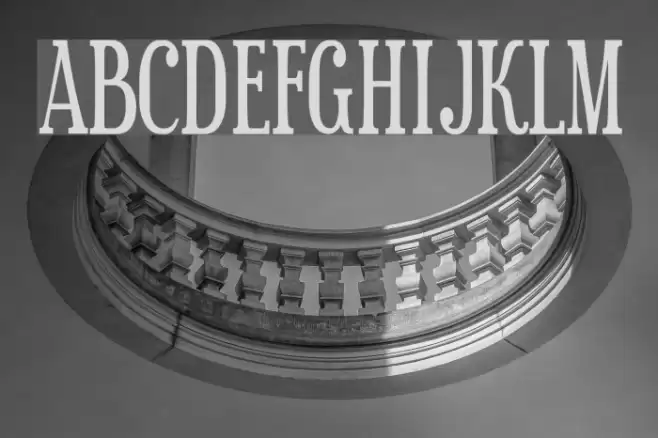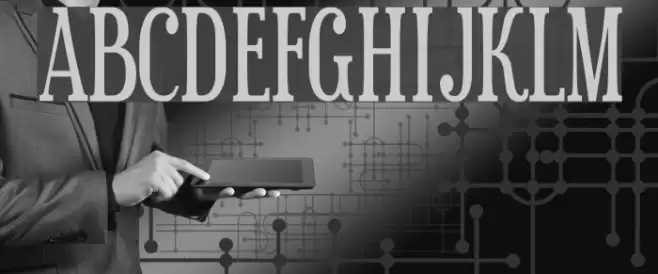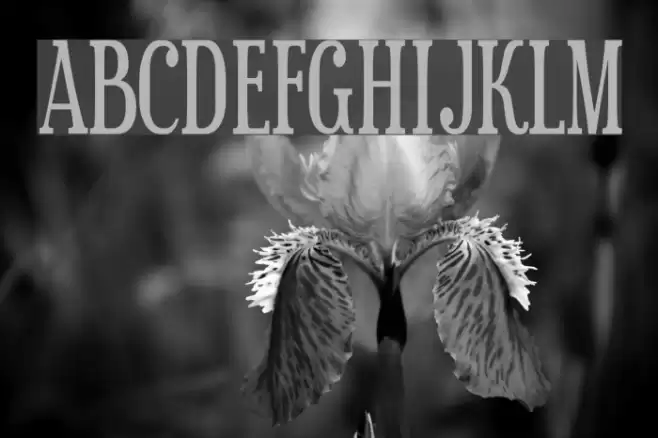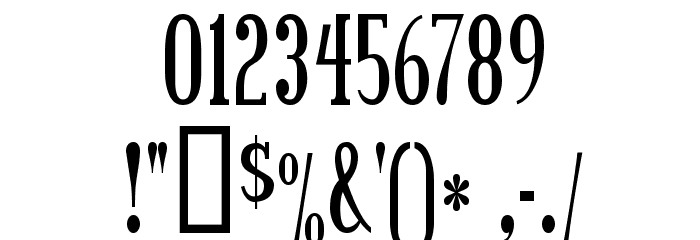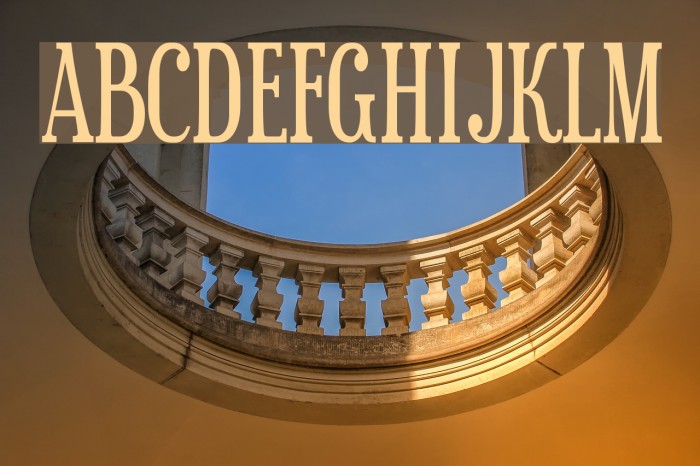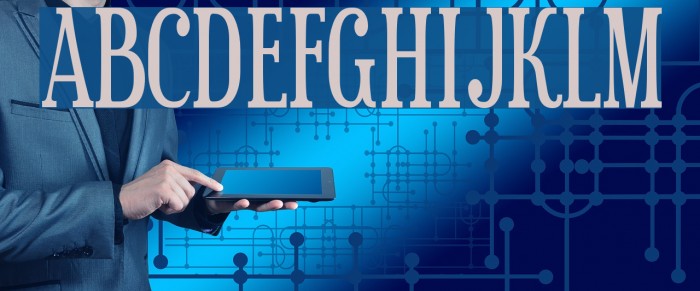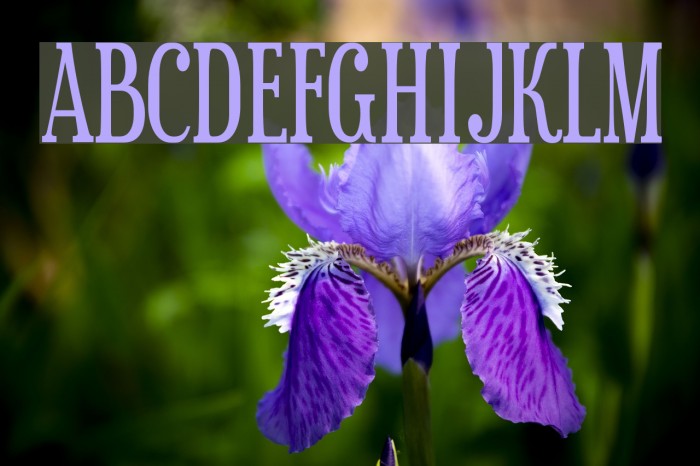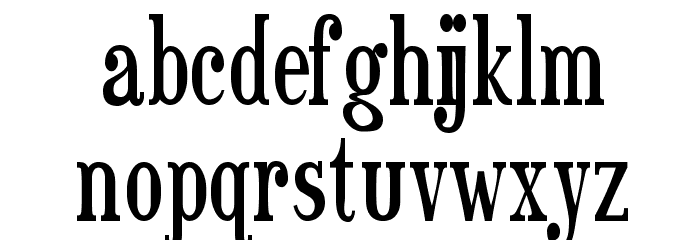
Sexsmith Font
Sexsmith Description
This font features a bold and robust design with distinct serifs that give it a classic and authoritative appearance. The uppercase letters are tall and commanding, while the lowercase letters maintain a consistent style that complements the overall aesthetic. The numerals are clear and well-defined, making them easily readable. Special characters are included, adding versatility to the font's use. The strokes are consistent in width, providing a uniform look across all characters. This font is suitable for projects that require a strong and traditional feel.
A bold serif font with a classic and authoritative style from Serif fonts.
- Proposed Projects: Ideal for book covers, headlines, posters, and branding materials that require a traditional and strong presence.
- Overall Style: Classic